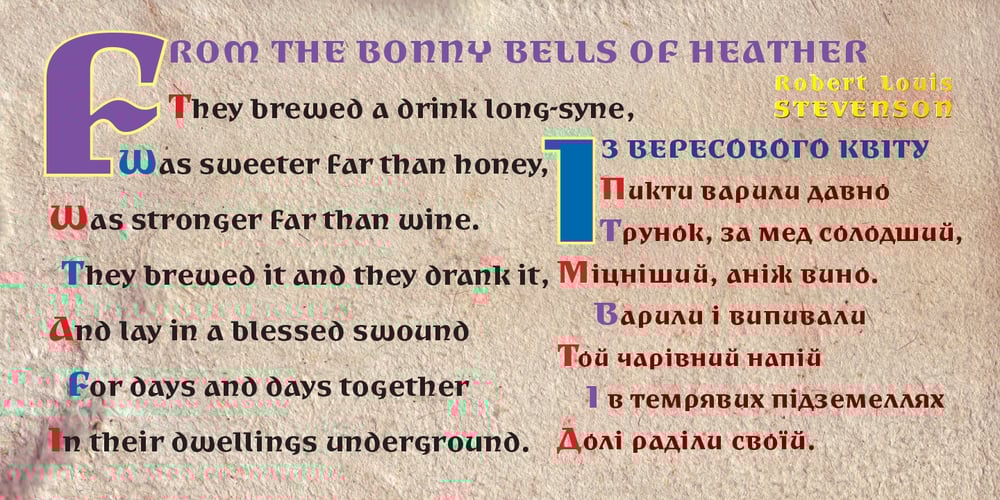
Dnipro Font Family was designed by Viktor Kharyk, Henadij Zarechnjuk and published by Apostrof. Dnipro contains 1 styles and family package options. Dnipro is a version of experience generalization of Ukrainian decorative font creation. The generalization development was initited by Georgy Narbut and Mark Kirnarsky in the 1920s and continued in 1970-80s. Latin letters of the font have half-uncial forms, which makes it appropriate for the printing of the relevant content. Besides its decorative properties the font is easy to read and quite suitable for short texts. It is well suited for folk tales, Ukrainian and Slavic in general as well as Western European.